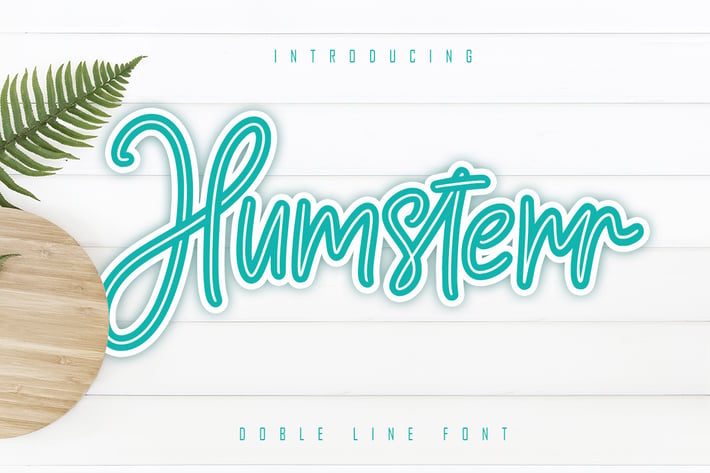
Humsterr - Double Line Font
Humsterr is a Double line type font combined with a rapi so it looks elegant, suitable to support a variety of designs and your business
+ Ligature